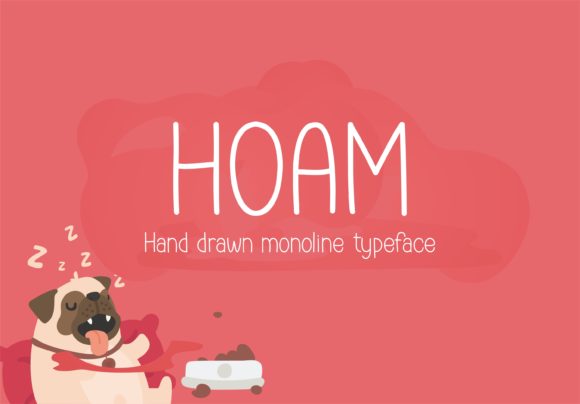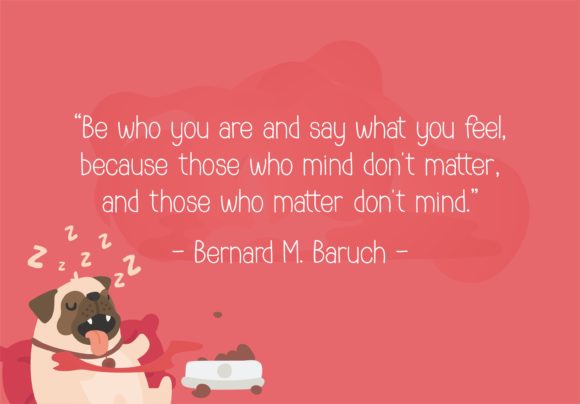
HomeScript FontsHoam Font Script Fonts Hoam Font FacebookXPinterestWhatsApp Hoam Font Poster 2 About Hoam Font Hoam is cute handwritten monoline font with a simple charm. Get inspired by its casual feel! DOWNLOAD ON CREATIVE FABRICAThis font is sold and delivered by Creative Fabrica. Font Canyon may earn a commission if you buy through this link. People also explored Magnollesty Font Santa Ugly Sweater Font Vualamor Estada Font Sterling Font Scartoon Font Lollipop Font Jingle Font Sappho Monogram Quality Time Font 310 0 TagsHoam Font Previous articleNina Ninut FontNext articleCarletone Font LEAVE A REPLY Cancel reply Comment: Please enter your comment! Name:* Please enter your name here Email:* You have entered an incorrect email address! Please enter your email address here Website: Save my name, email, and website in this browser for the next time I comment. Personal Use Free Konexio Personal Use Free Read more about this font Over the Top Personal Use Free Read more about this font Autines Personal Use Free Read more about this font Mandara Personal Use Free Read more about this font BLOG Where to Buy American Fonts Online in 2024 Where to Buy American Fonts Online: The Ultimate Guide for 2024 Looking for the perfect American font to elevate your design projects? You're in the... Elegant Wedding Invitation Fonts – Handwritten & Script Fonts Modern Sans-Serif Fonts That Brands Love in 2025 Using Fonts in Digital Marketing: Tips to Strengthen Your Brand Identity